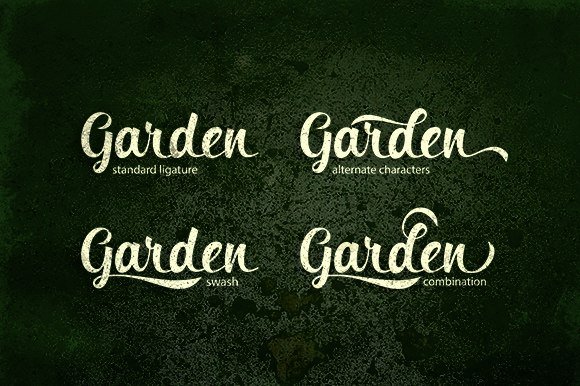
Bringin Script Font
The Bringin Script Font is highly regarded as an exceptional choice for modern marketing and promotions, ensuring a top-notch impression.
A totally well-known content material fabric author from wakanda font the all proper reserved for this stylish typeface. And he creates it for lucy script present-day writing and is derived under the class of display fonts.
Style Of Bringin Script Font Free